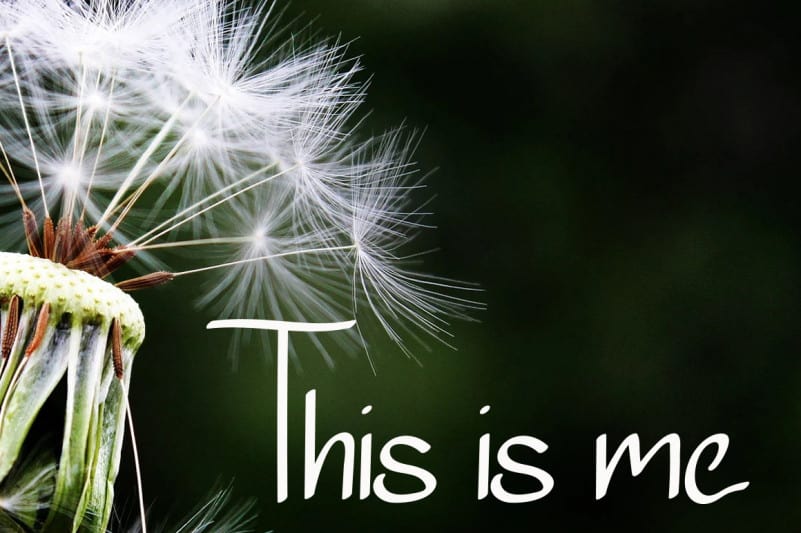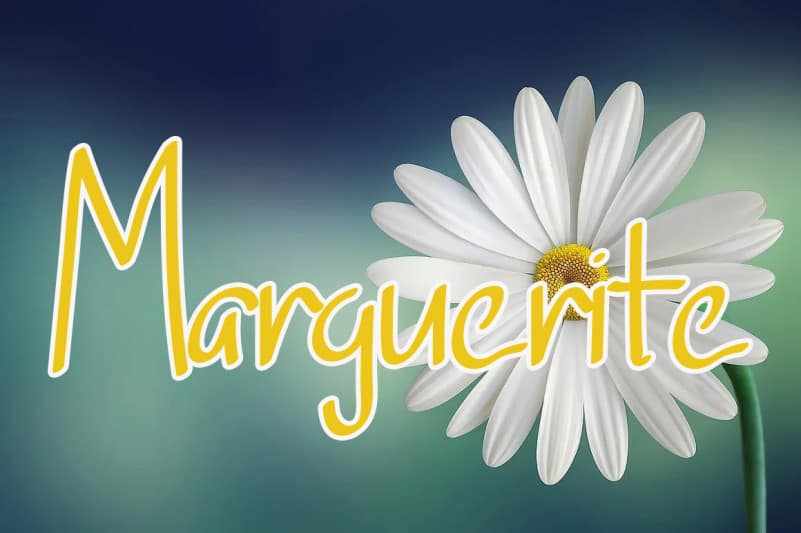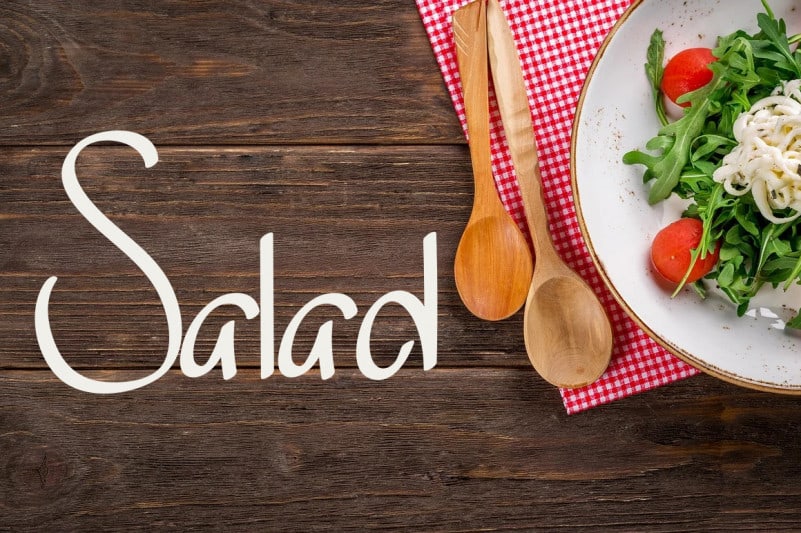
Allia & Allio Font
Allia & Allio Font is a relaxed and fresh handwritten font. Its natural and unique style makes it incredibly fitting to a large pool of designs. Use this font for your designs and explore its endless possibilities.